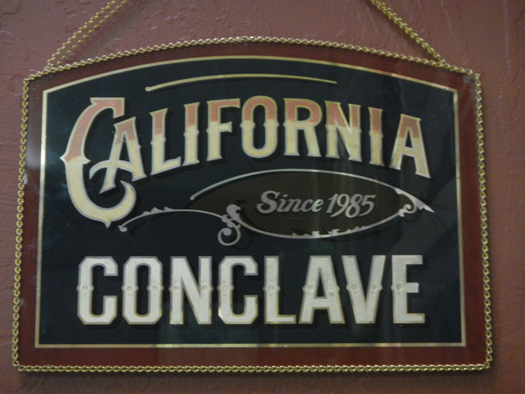
California Conclave 2014!
The California Conclave wrapped up another successful meeting! Started back in 1985 by the late
Rick Glawson, it continues on with many of the old hands, and some new ones to carry on the craft,
hosted by Dean Ross out in Bakersfield, California. It was the 29th annual meeting! ...Which means
next year will be the big Three-O! This year we did a very nice piece derived from an old orange crate
label, titled, "Cal-Oro" vectored by Glenn Duncan, and skillfully screen printed by one Mr. John Studden
and his team. Hopefully some of the finished Cal-Oro pieces will be posted here. A couple of secondary
projects also showed up, one being a pre-printed turn-of-the-century lithograph of a fancy popcorn
wagon, and this one designed by myself and ready for the participants to work on, if they chose.
I kept this one really simple, employing a black screen print, then gilding the background in Moon
gold, with the seldom used, but not forgotten, "beer size" trick, which is the same as water gilding,
but yields a matte finish to the gold. I also did a second one that I'm going to make a little fancier.
I also did the popcorn wagon, which I finished while I was there. It was really fun, kind of a
"paint-by-numbers" without any numbers! Everyone had a great time!
Here is the artwork used to create the Cal-Oro piece.
Here's the popcorn wagon we did down at the Conclave.
Broke my arm a few days before the Conclave was set to start, but despite the handicap I was more than happy I went. Big thanks to Dean for hosting and Also to Larry and Glenn for the artwork as well as to John for the expert pulls on the screen. Got a chance to photograph my piece today and got so excited I decided to start another one on late on Saturday night.
23k Brightline, Mother of Pearl Brocade and Aluminum foil centers
A couple more pictures. First up the the sign some fella's made for Daine.
As noted by Blake, we also did this cool little piece. My attempt now hangs in my shop.
After that, guess I'll work on the Buttlerfly!
Nice job on the Cal-Conclave piece, Rich.
I've been working on the Cal-Oro piece at a steady pace...'cause there's no reason to hurry....
here's my finished blake design
I have yet to put the shell into the ovals of the butterfly as I will do that after I frame them.
Dbl drop shadow - first color is black like the background